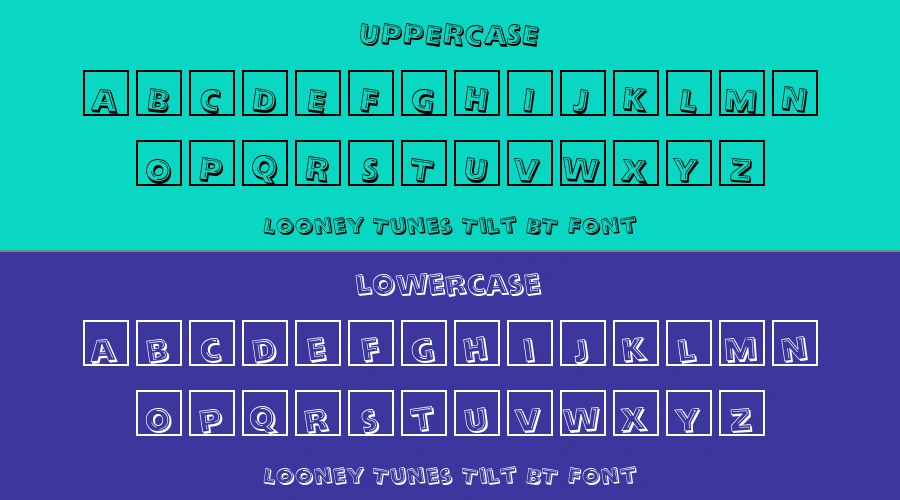
About Looney Tunes Tilt BT Font
Looney Tunes Tilt BT Font embodies typographic excellence through its masterful combination of brush influence and message hierarchy. Created for mobile applications, this typeface delivers exceptional adaptability and design innovation across all applications. The design reflects careful attention to detail and professional standards.
Advanced capabilities include distinctive flared stems and versatile stylistic sets, giving designers creative control. When used in captions, Looney Tunes Tilt BT Font exhibits remarkable language switching. The harmonious balance between joint detail and cultural context sets this typeface apart.